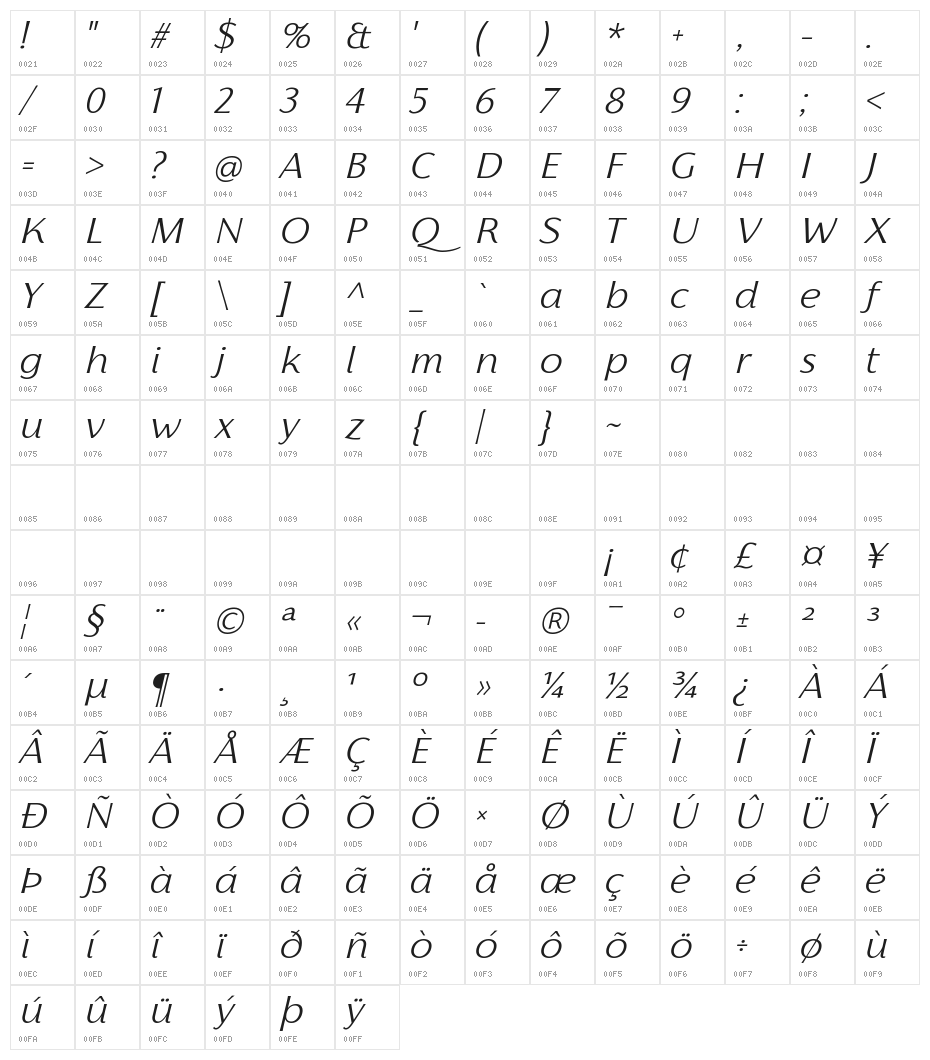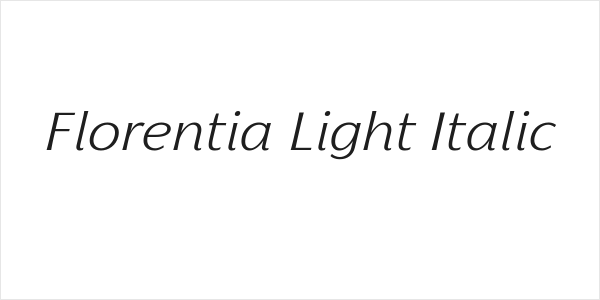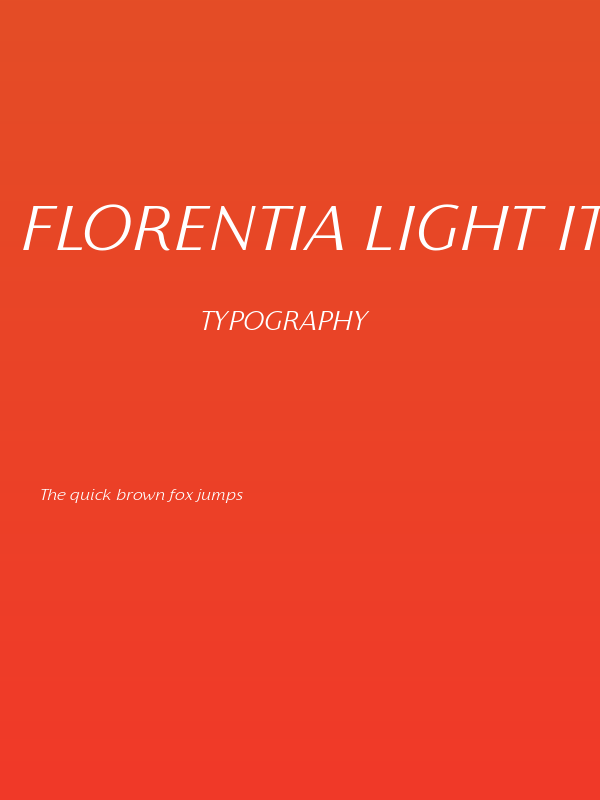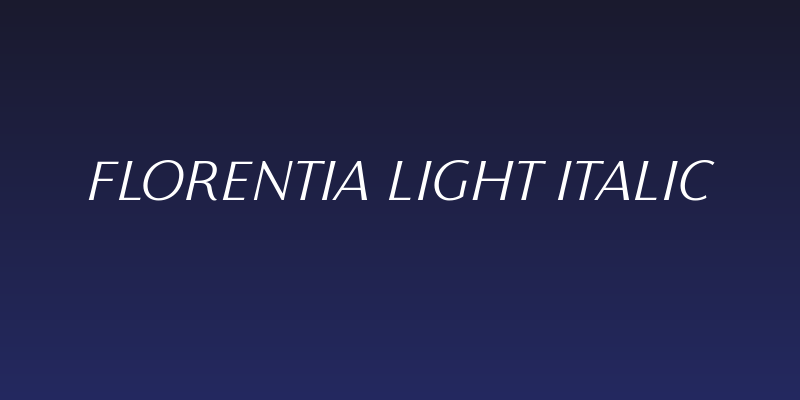
Florentia Light Italic Font
Florentia Light Italic Description
This elegant typeface features a refined and sophisticated design, characterized by its light weight and italic style. The letters exhibit a smooth, flowing quality with gentle curves and a slight slant, adding a sense of motion and grace. The font maintains a consistent stroke width, providing a harmonious and balanced appearance. Its clean lines and subtle serifs enhance readability while preserving a classic aesthetic. The numerals and special characters are designed to complement the alphabet, ensuring a cohesive look across all text elements.
| Proposed Projects | Ideal for wedding invitations, elegant branding, fashion magazines, and luxury product packaging. |